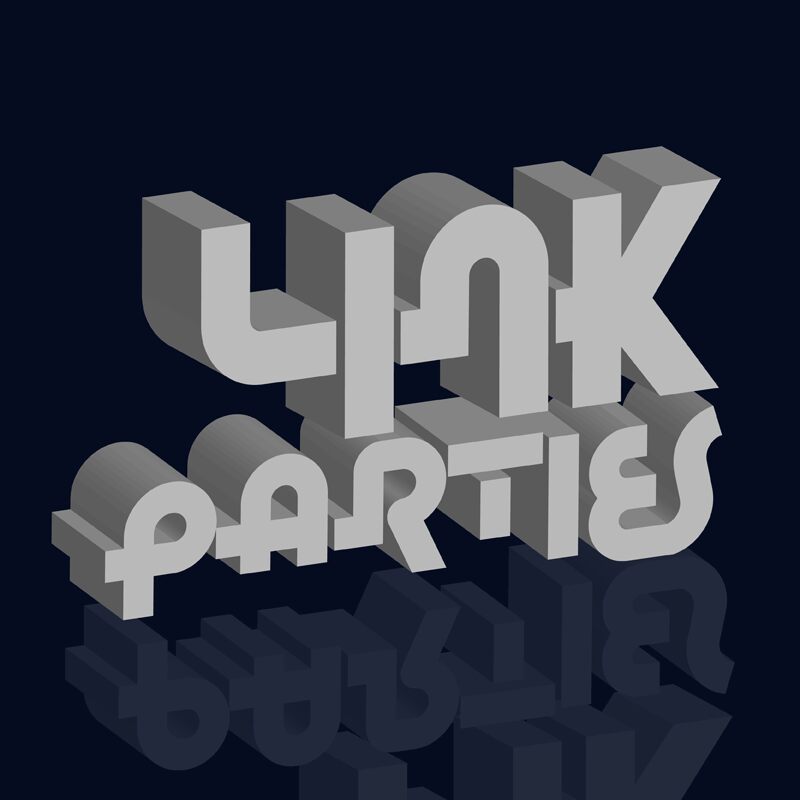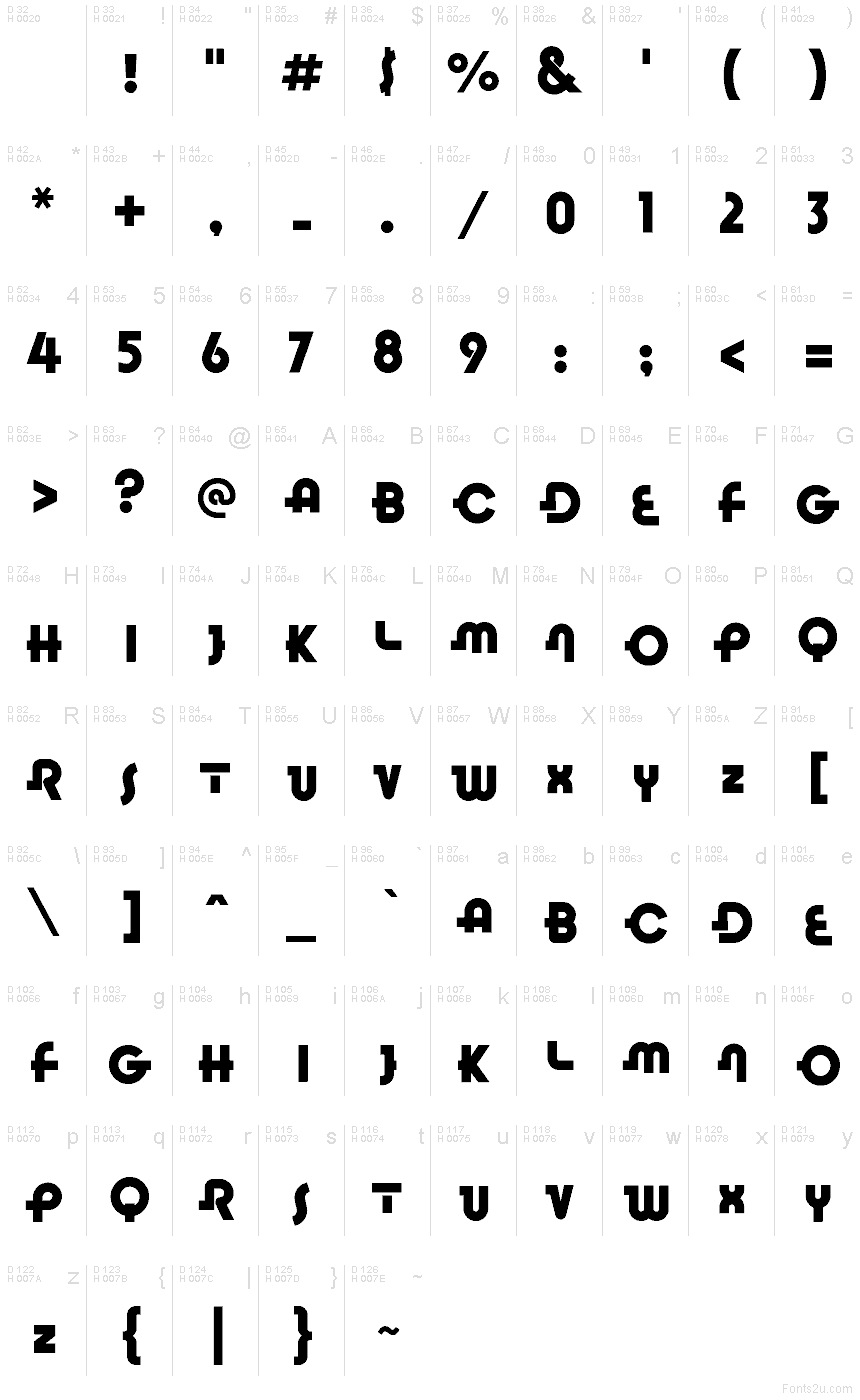
Link Parties Regular
Link Parties font by Galdino Otten Fonts is a free groovy display typeface. Its chunky, tube-like strokes bend into playful corners and carve out neat notches, so letters feel like they’re snapping together—almost like links in a chain. The rhythm is bold and bouncy without getting sloppy, giving headlines that instant “turn the volume up” energy.
Using Link Parties, your posters, festival branding, event invitations, YouTube thumbnails, stickers, and snack packaging come off loud, friendly, and unmistakably retro. The spacing holds strong at large sizes, so short titles and punchy slogans land with impact. For balance, pair this free font with a simple, unobtrusive sans for body copy.